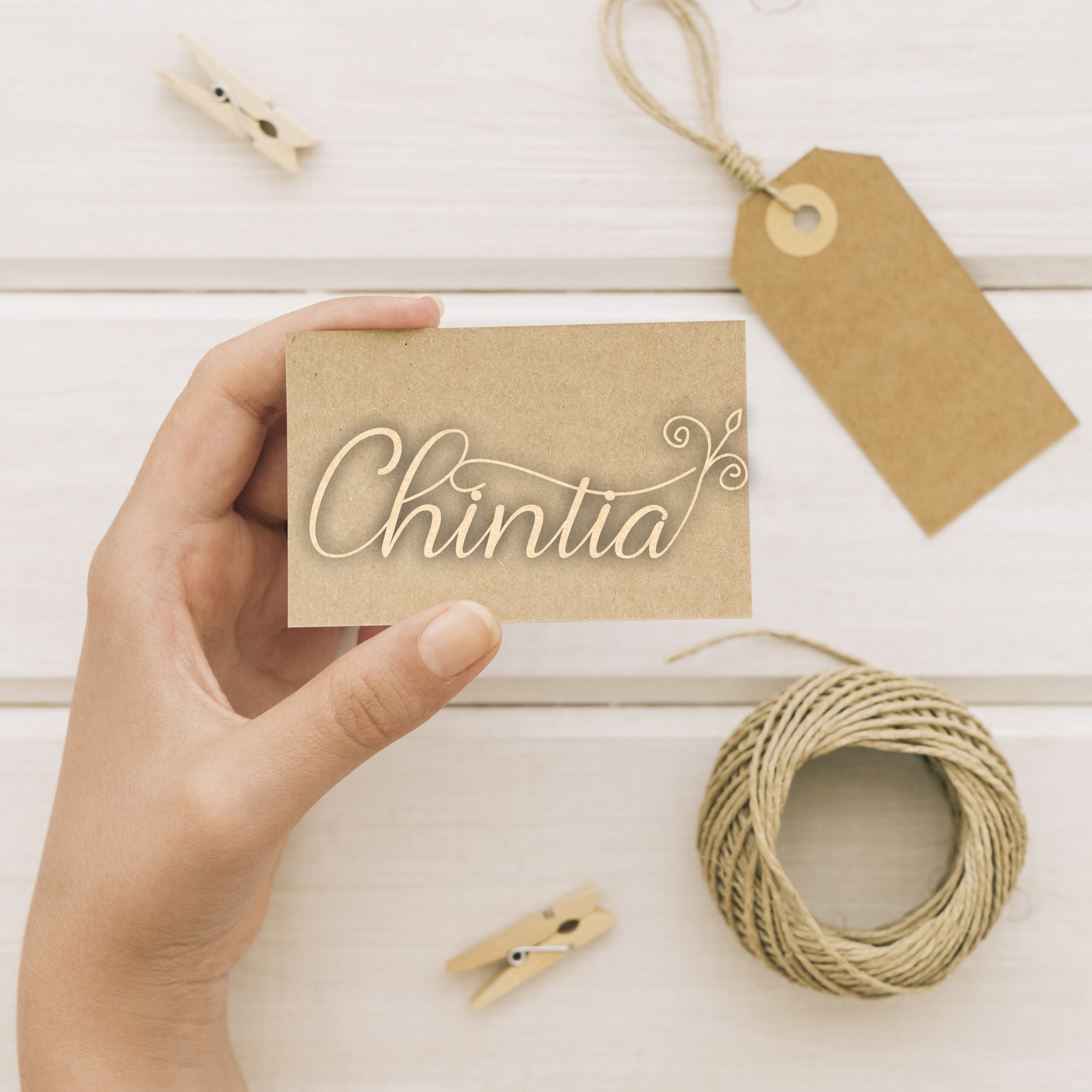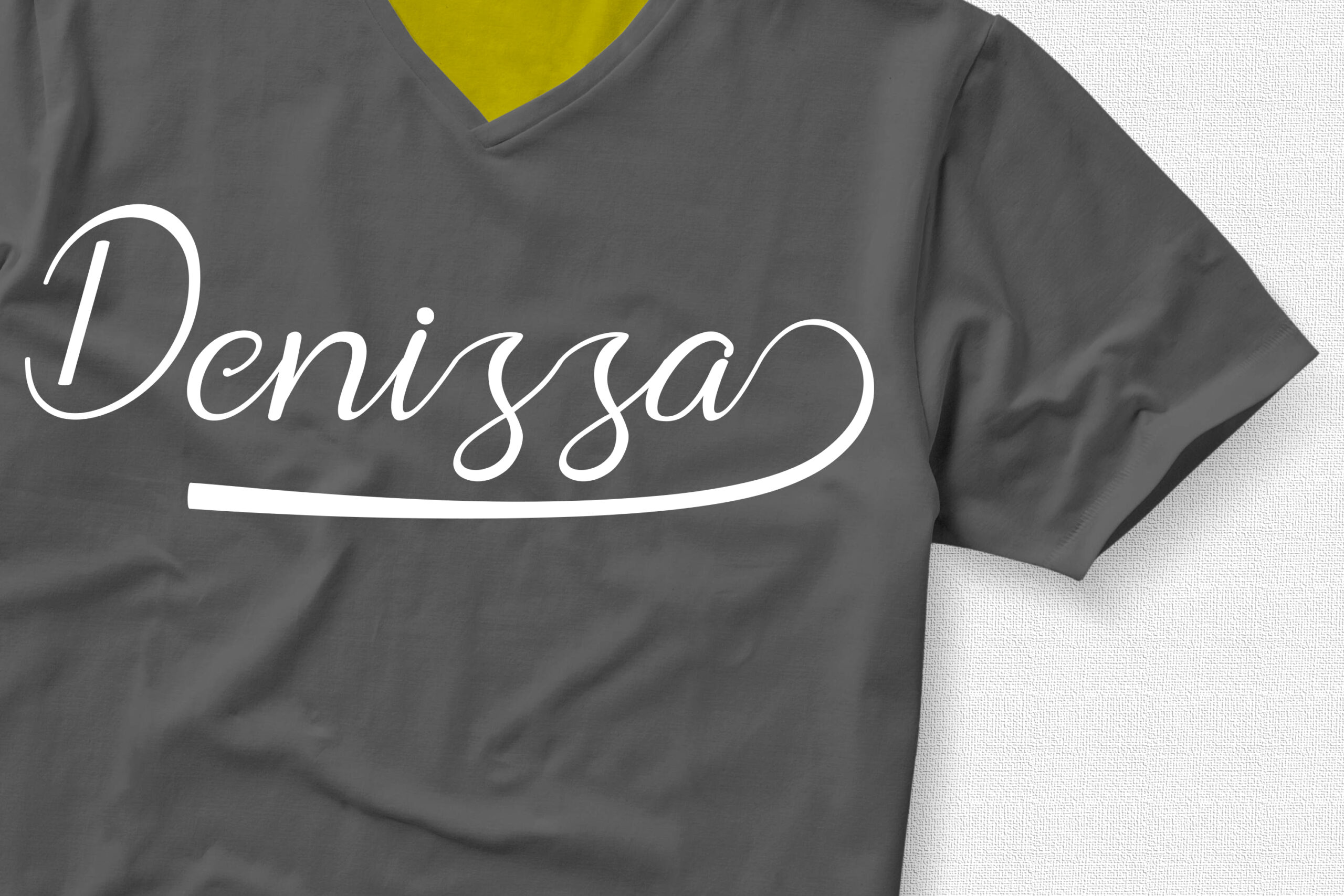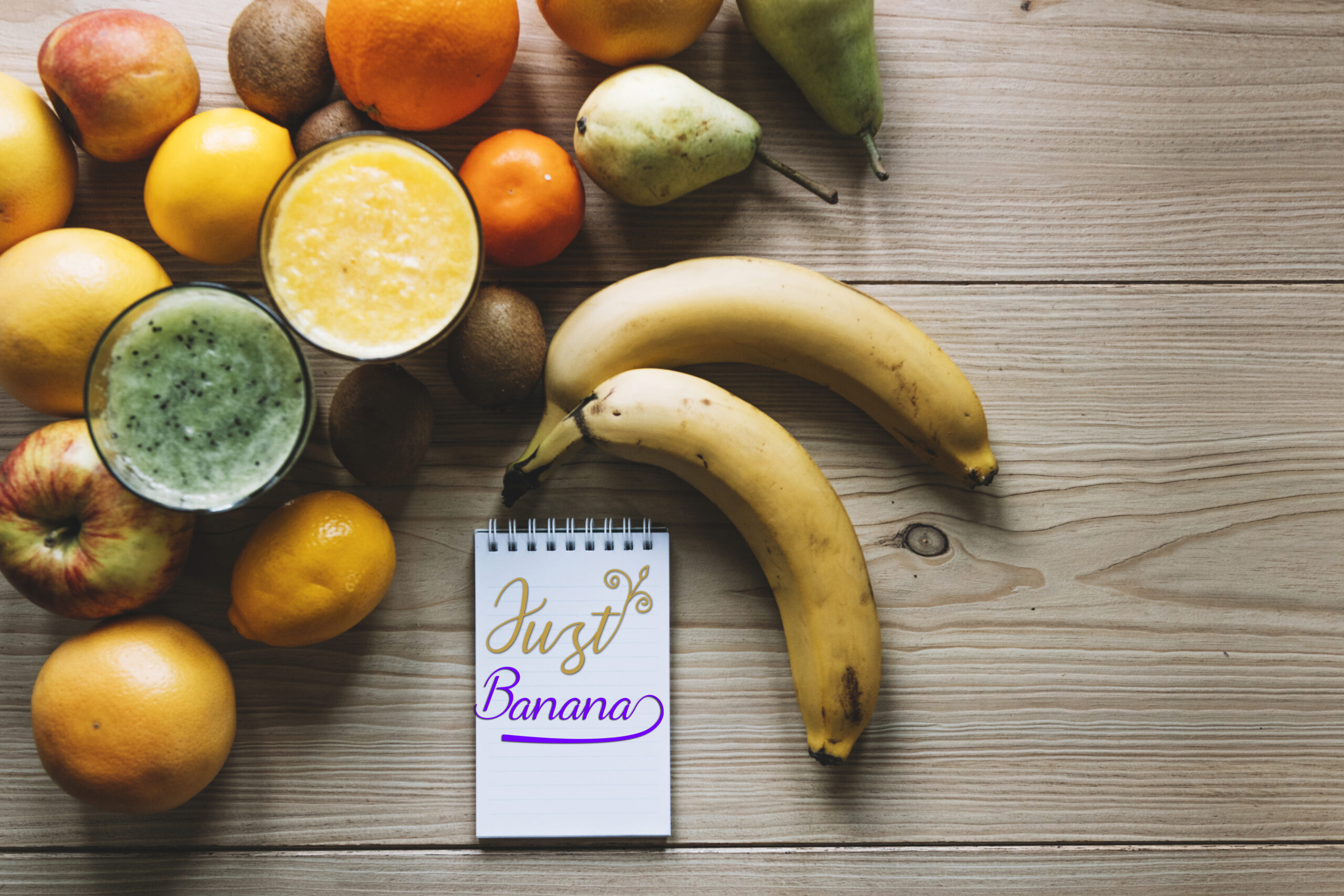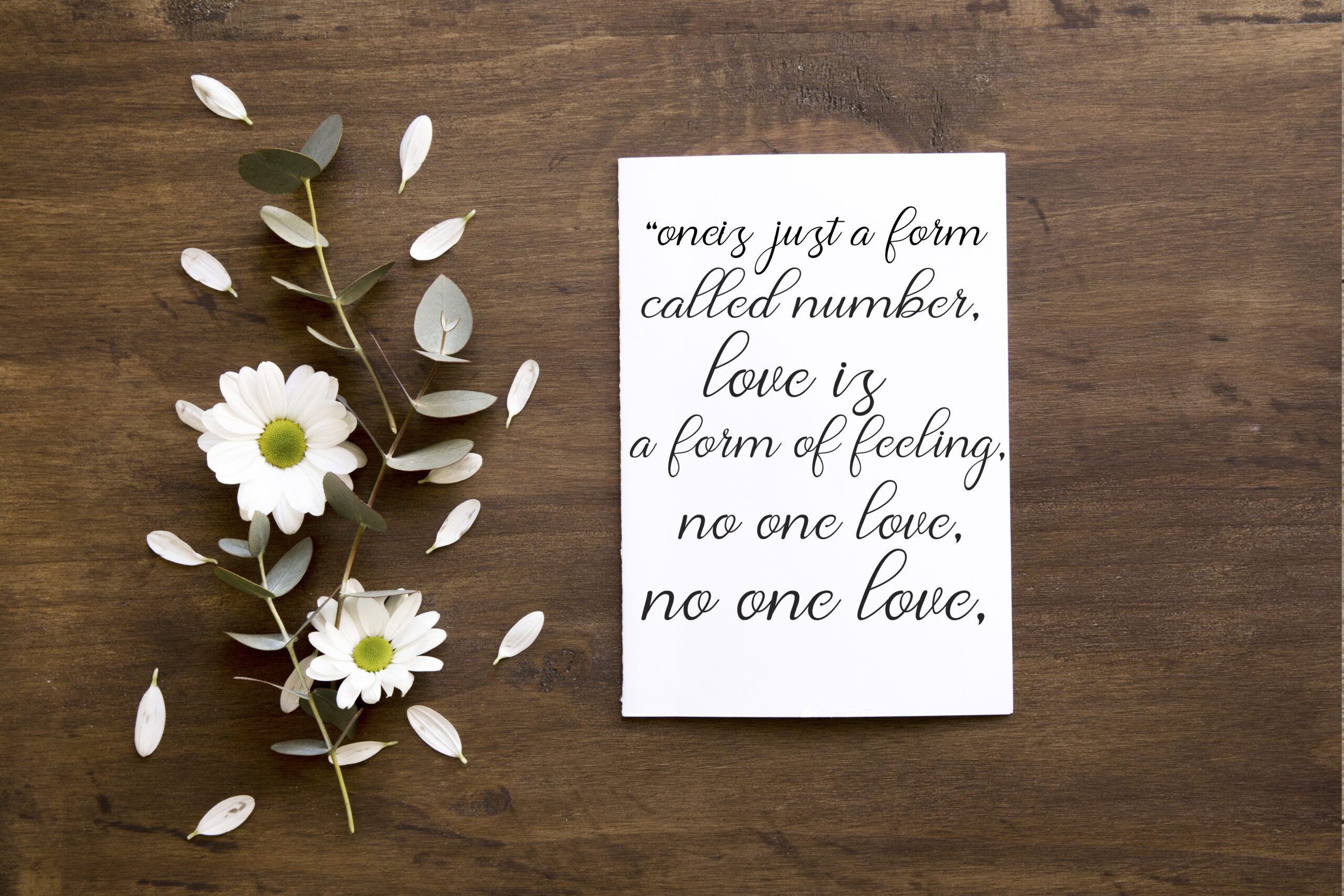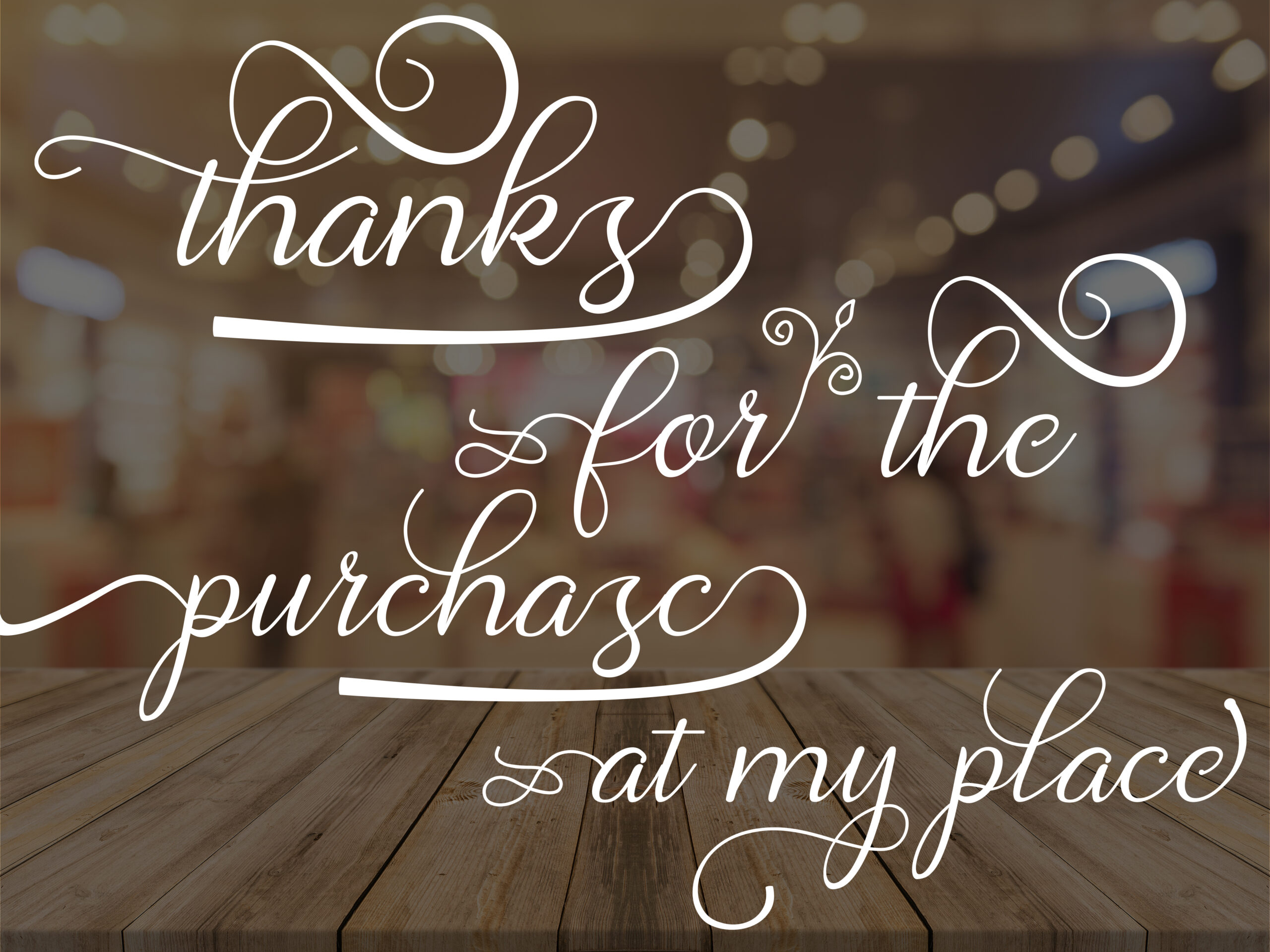
Chanteka Font
About Chanteka Font
Chanteka is a stunning handwritten font, with a modern and unique calligraphic form. This font is perfect for modern design works, and can add a charming yet well constructed feel.